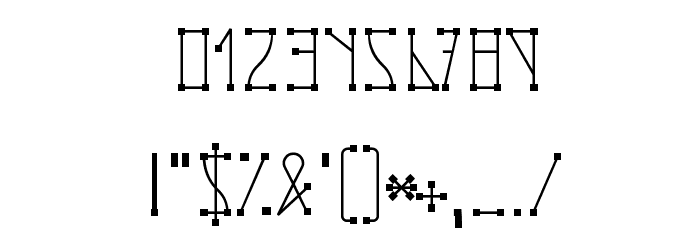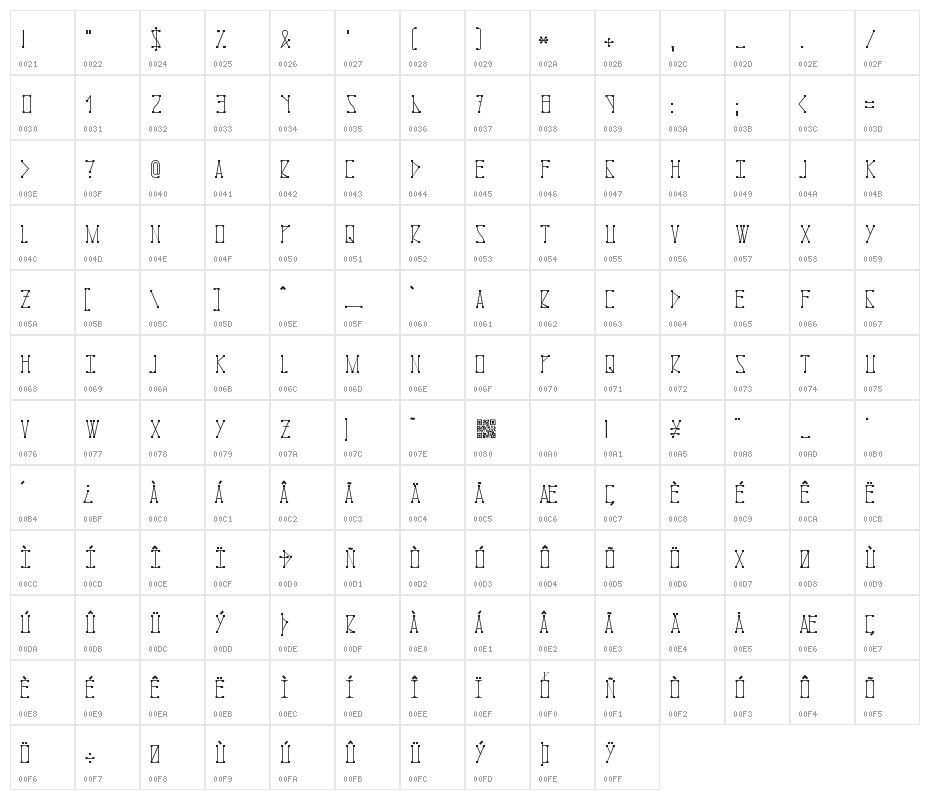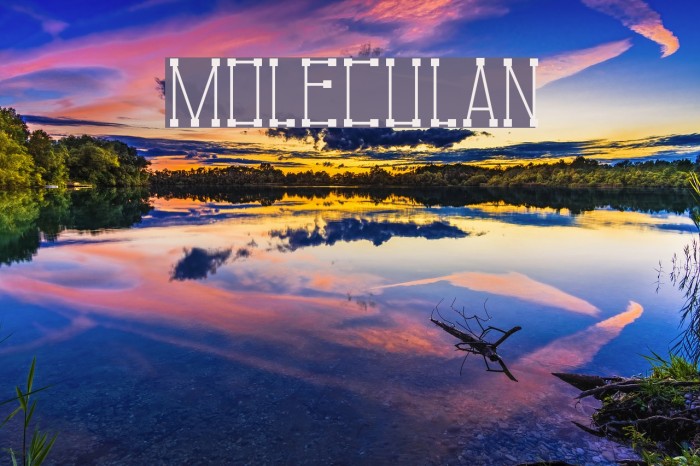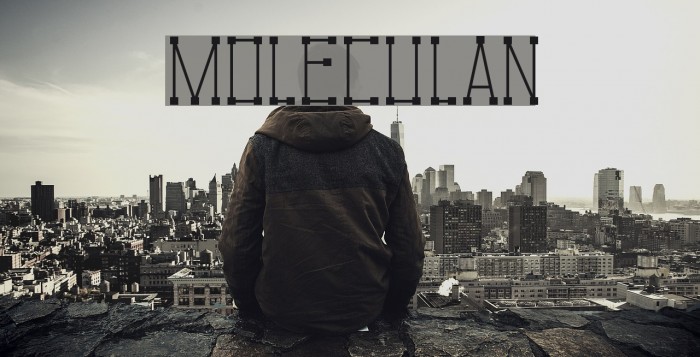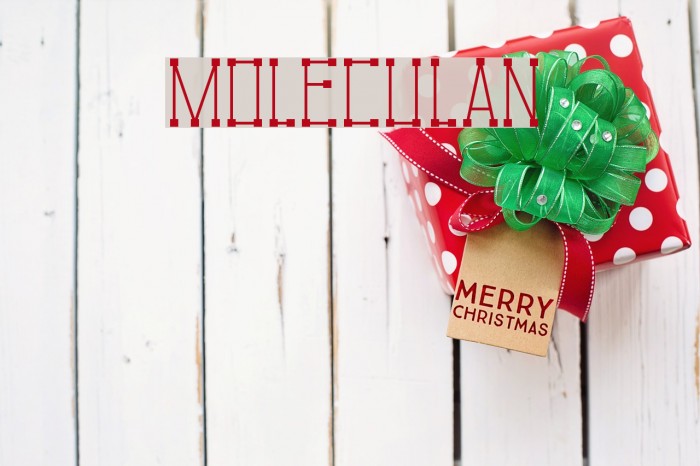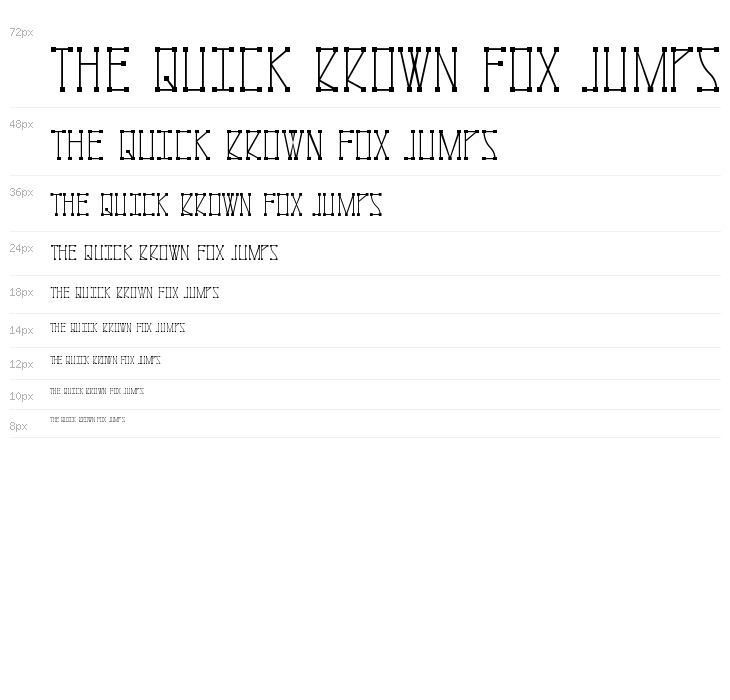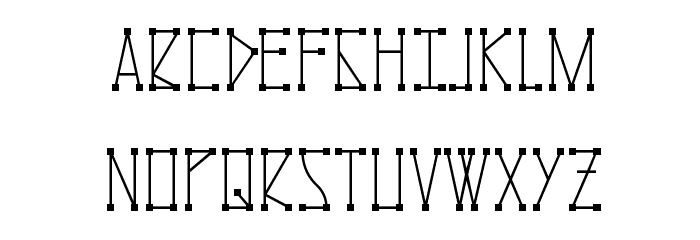
Moleculan Font
Moleculan Description
This font features a unique, geometric design with a distinct molecular structure theme. Each character is constructed using lines and dots, resembling a scientific molecular diagram. The uppercase and lowercase letters maintain a consistent style, with angular lines and precise dot placements. Numbers and special characters follow the same design principles, ensuring a cohesive look across all glyphs. The font's innovative style makes it stand out, offering a modern and futuristic aesthetic.
| Proposed Projects | Ideal for science-themed posters, educational materials, futuristic branding, and tech-related projects. |